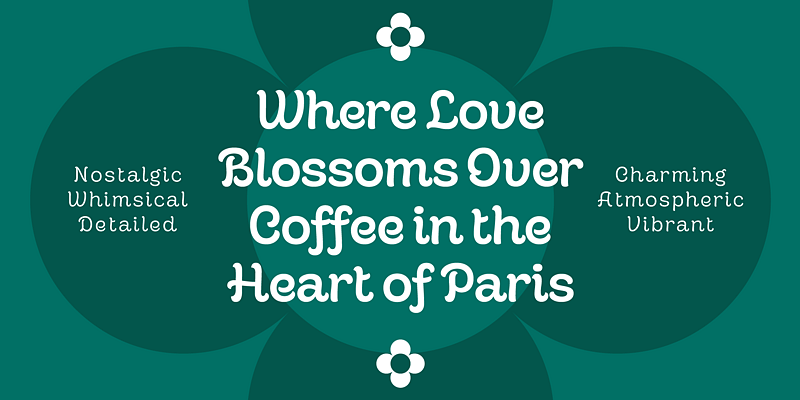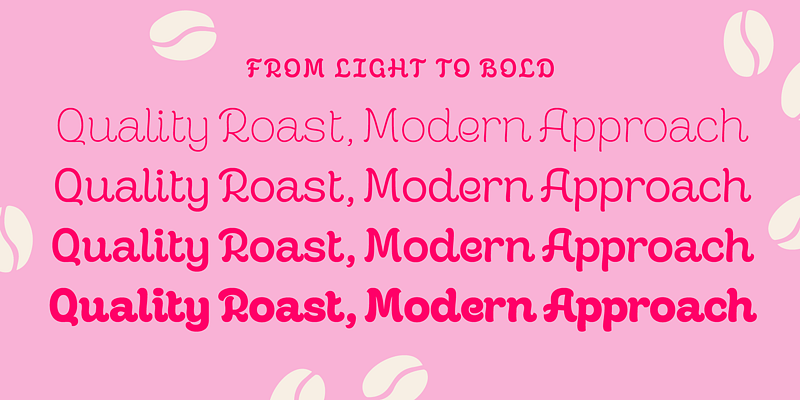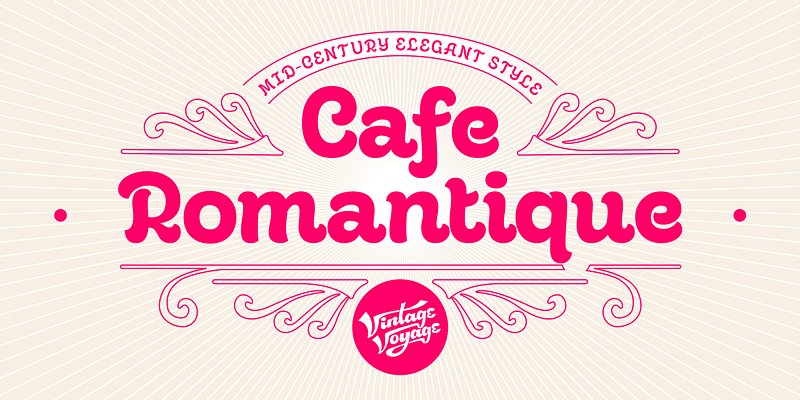
Cafe Romantique is a charming take on an upright script. Pavel Korzhenko designed it for branding a cozy Parisian café one might find while strolling in Saint Germain de Pres or for packaging handmade caramelle that only an Italian Nonna could make. With all its curves and swash-like strokes, it is ideal for display typography, but because of the open shapes, it works well in smaller text, too! Available in four distinct weights—Light, Regular, Medium, and Bold—or as a variable font.